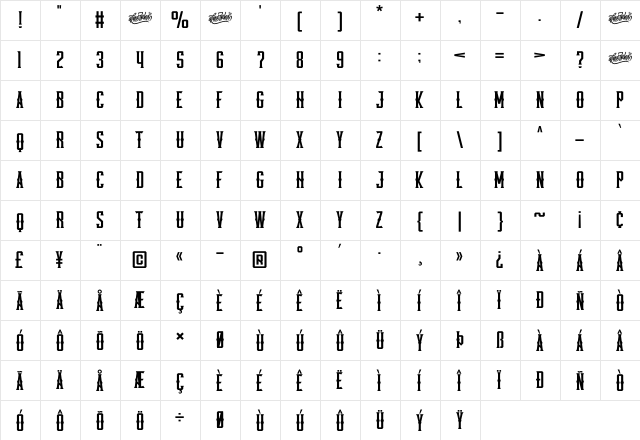
Pineforest Display Regular
Design Context for Pineforest Display Typeface
Pineforest Display brings ornamental detail and strong personality to headlines and identities, where visual impact matters more than quiet functionality.
Font Pairing: Pair with a clean neutral sans-serif for body copy to let Pineforest Display's character lead without overwhelming the composition.
Pro Tip: Use Pineforest Display exclusively at display sizes — it was designed to be seen, not read at length. Let a neutral companion handle body copy.